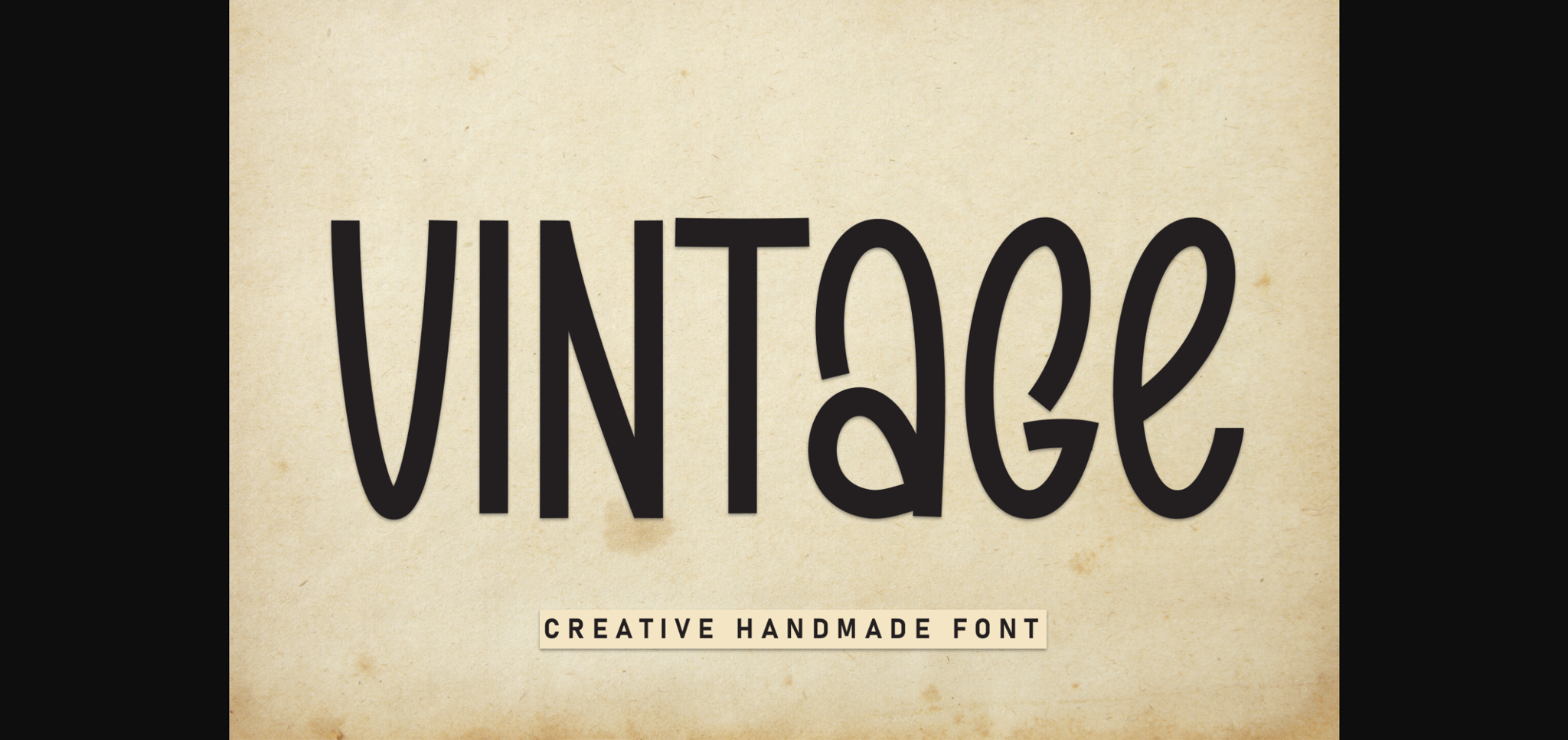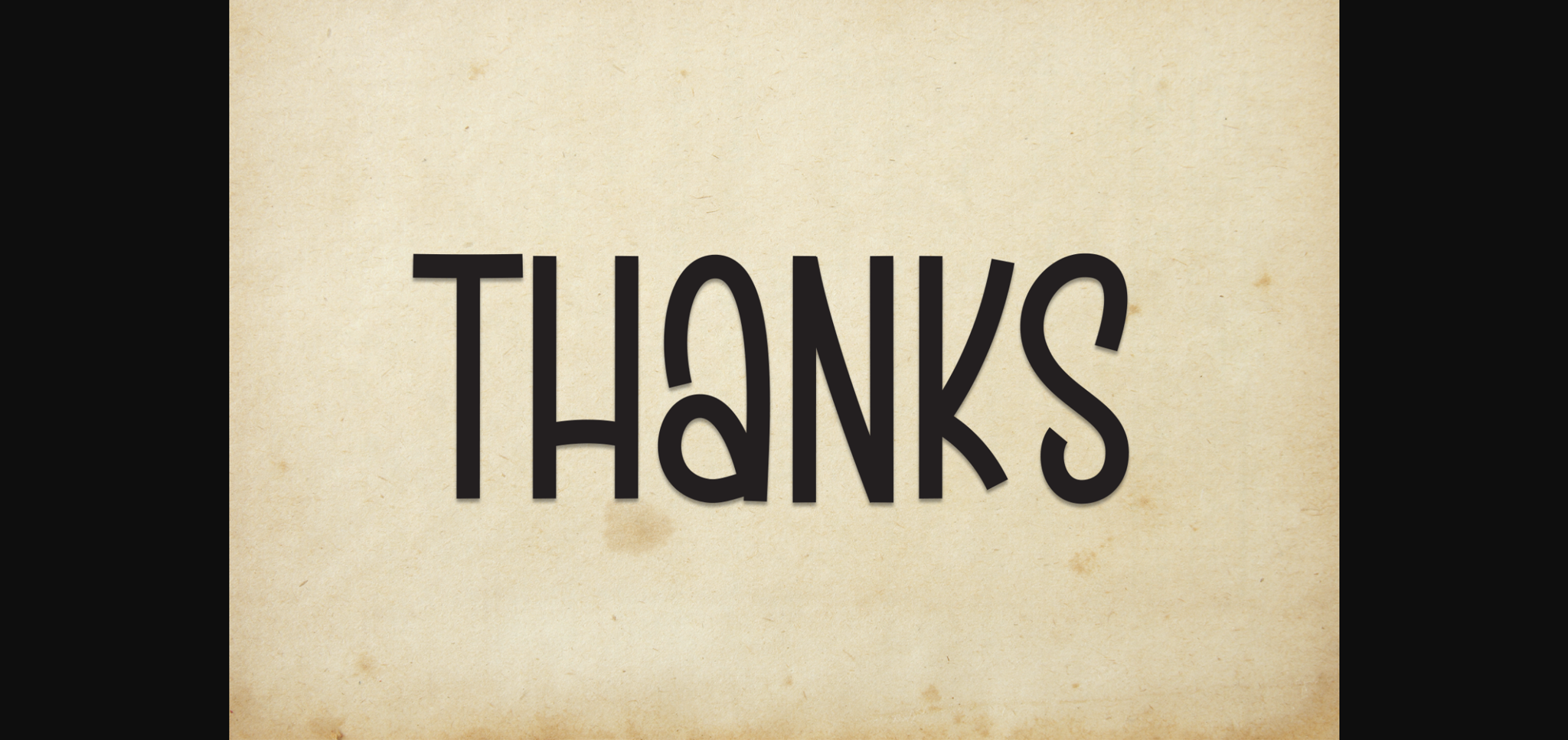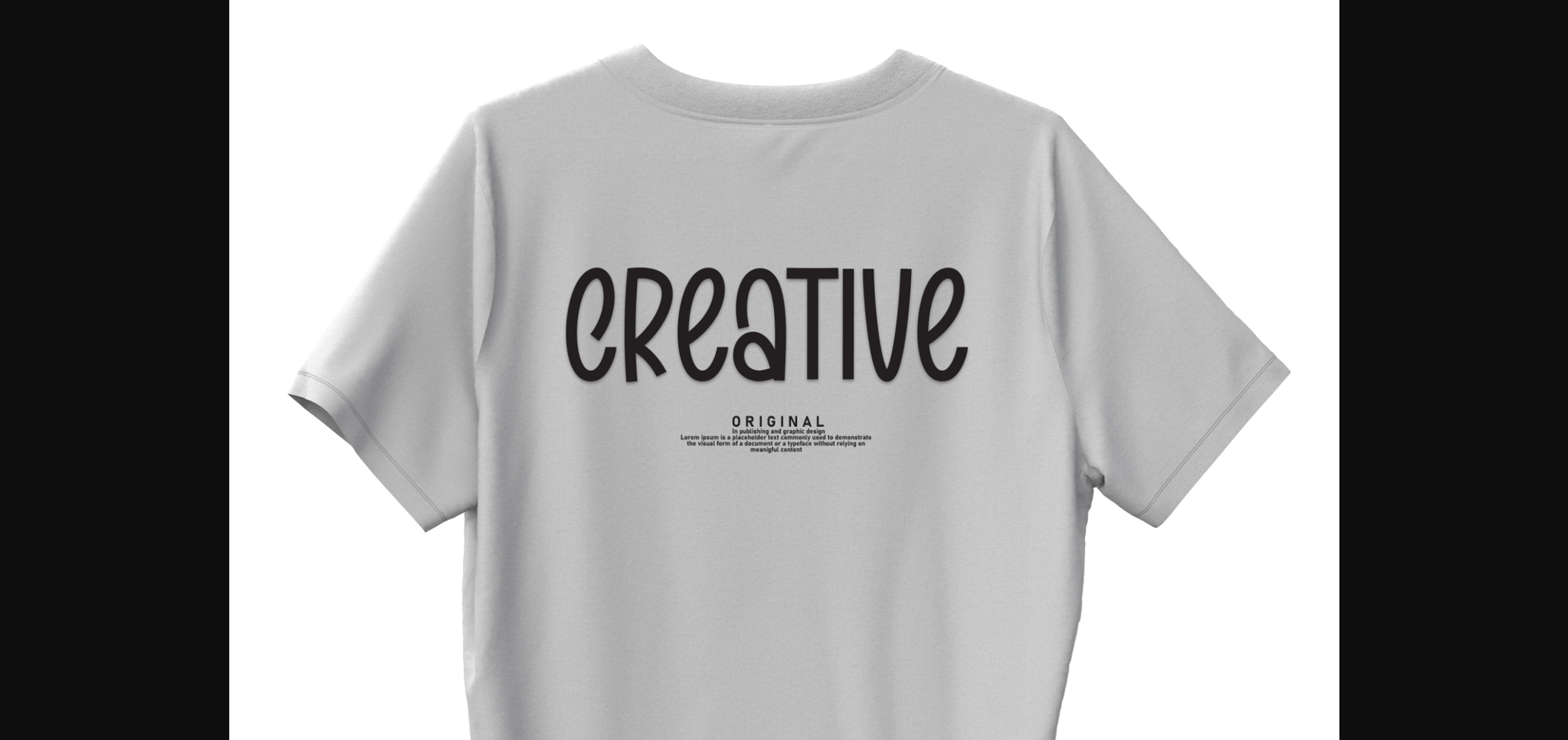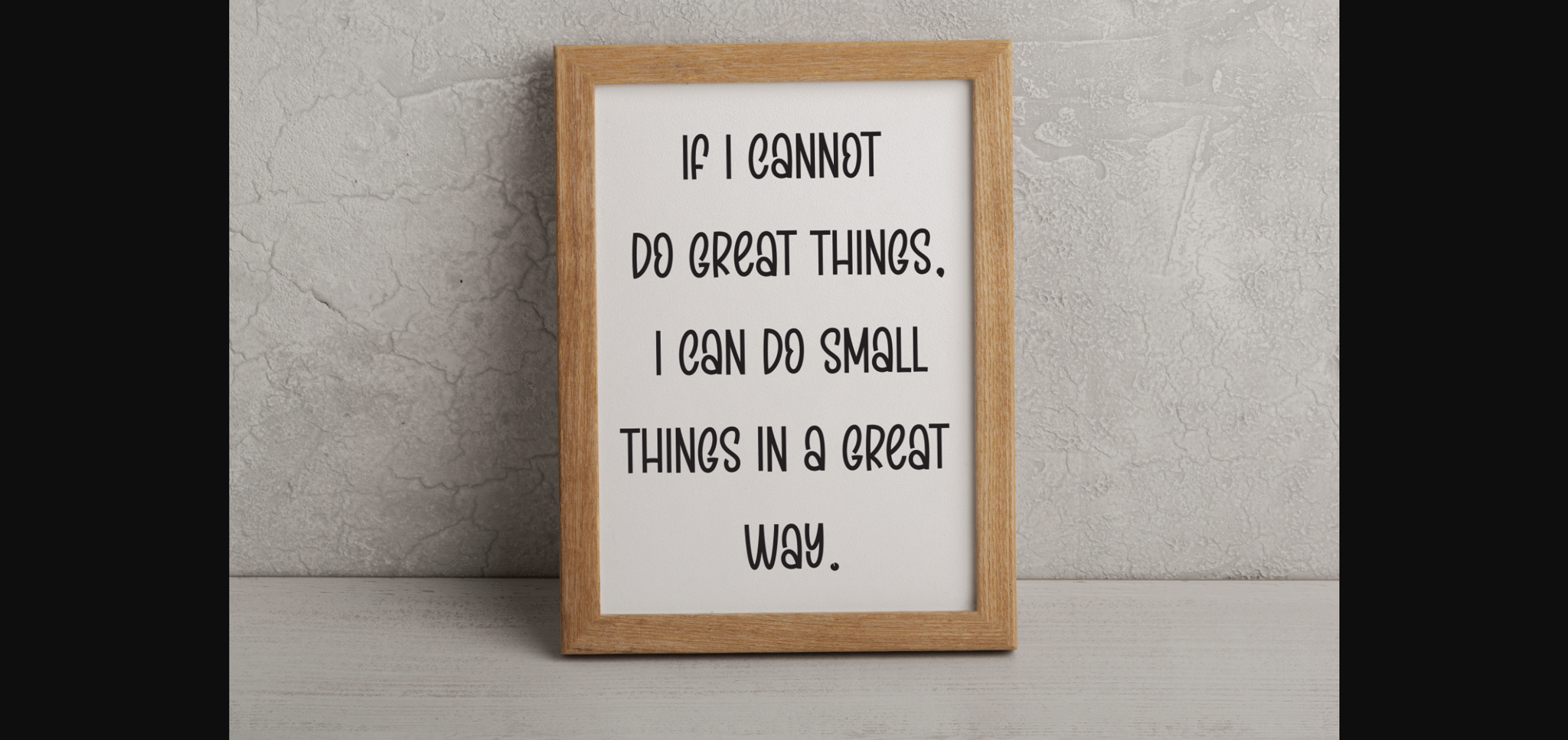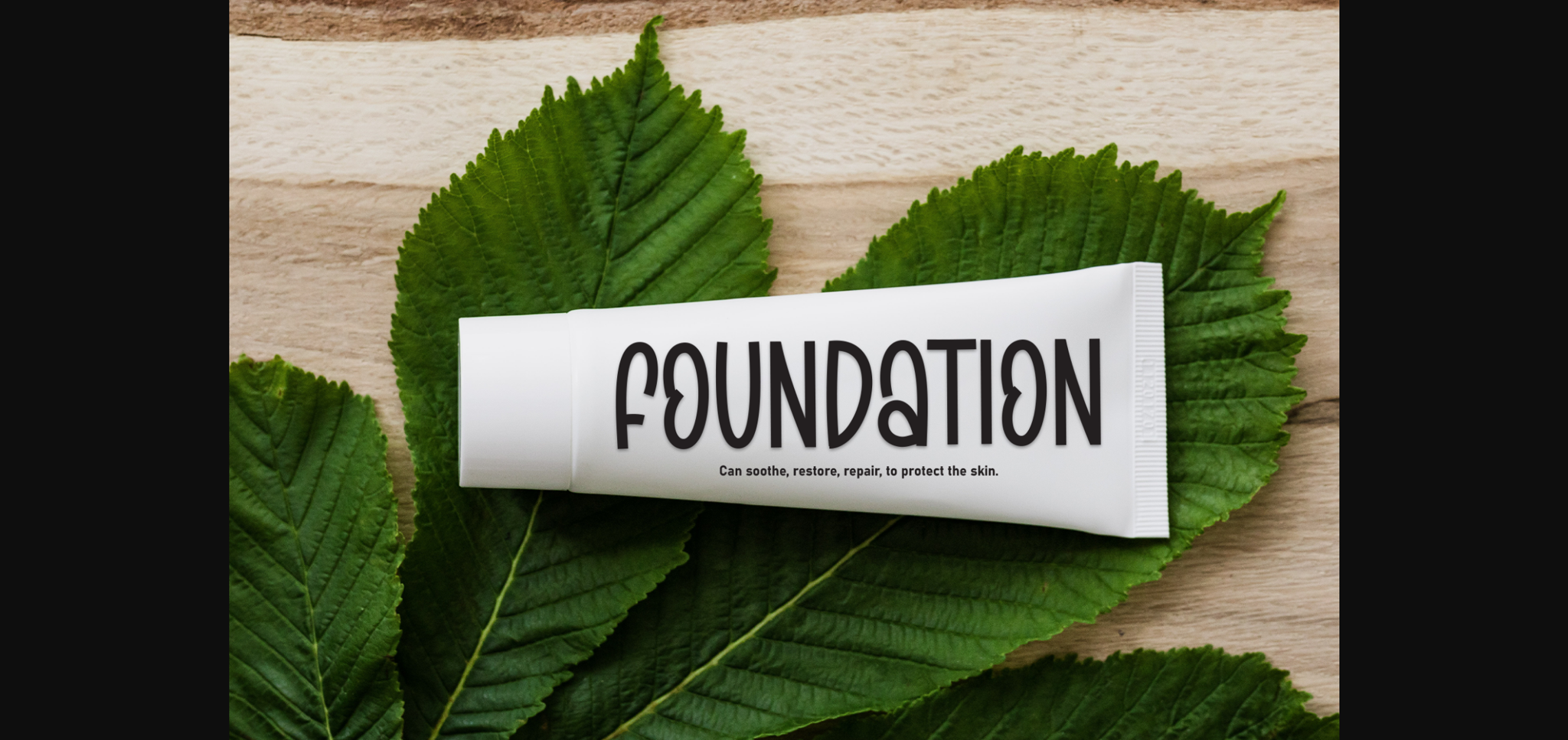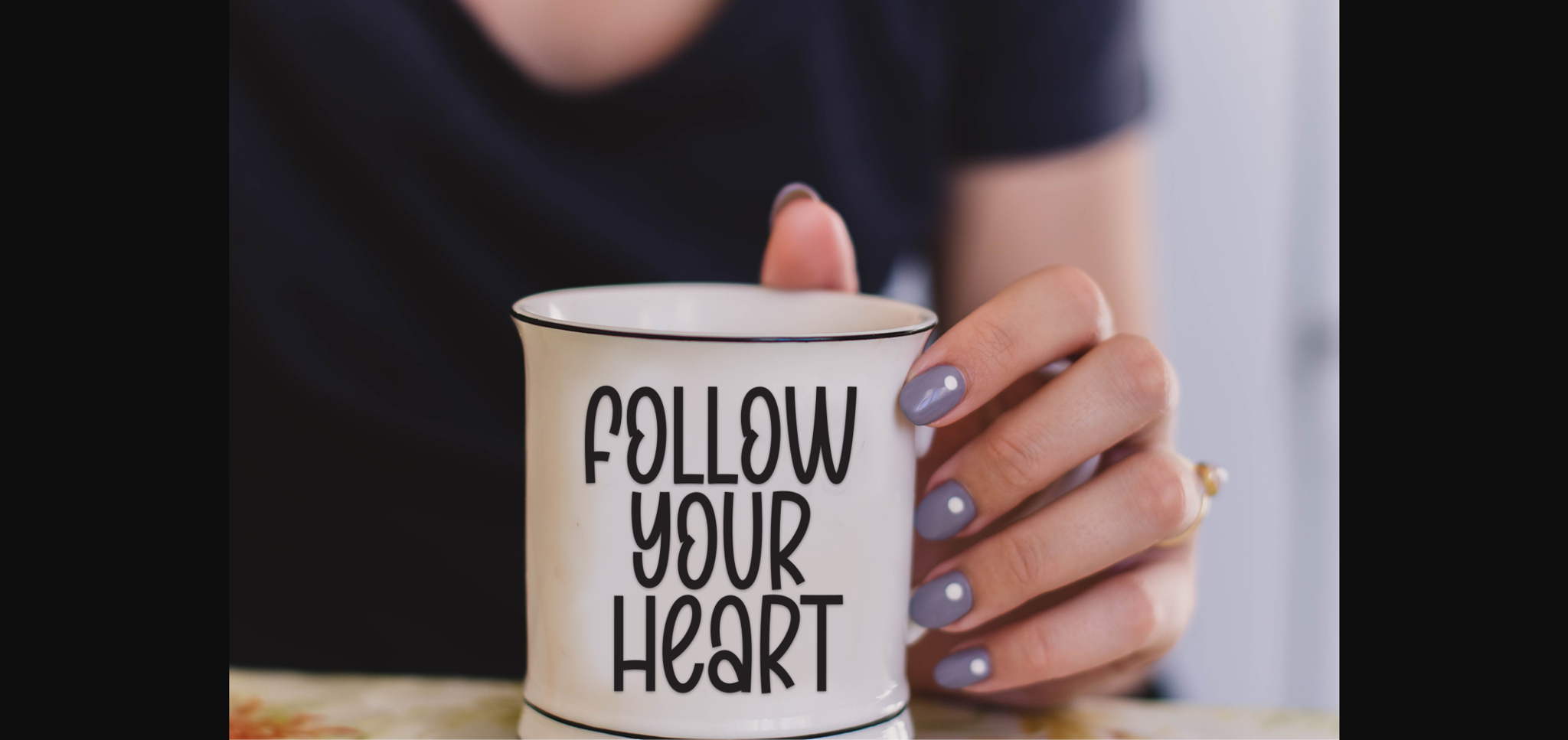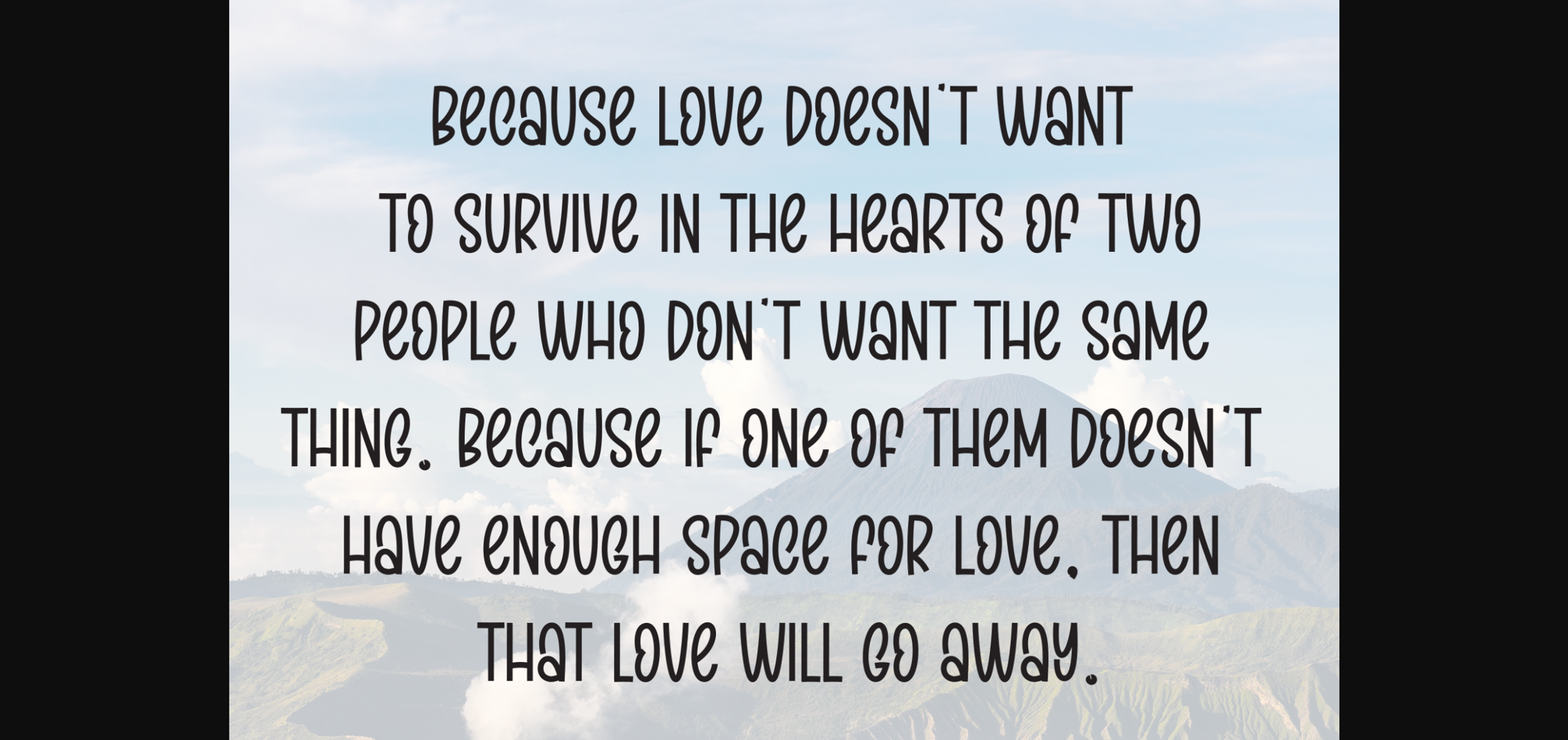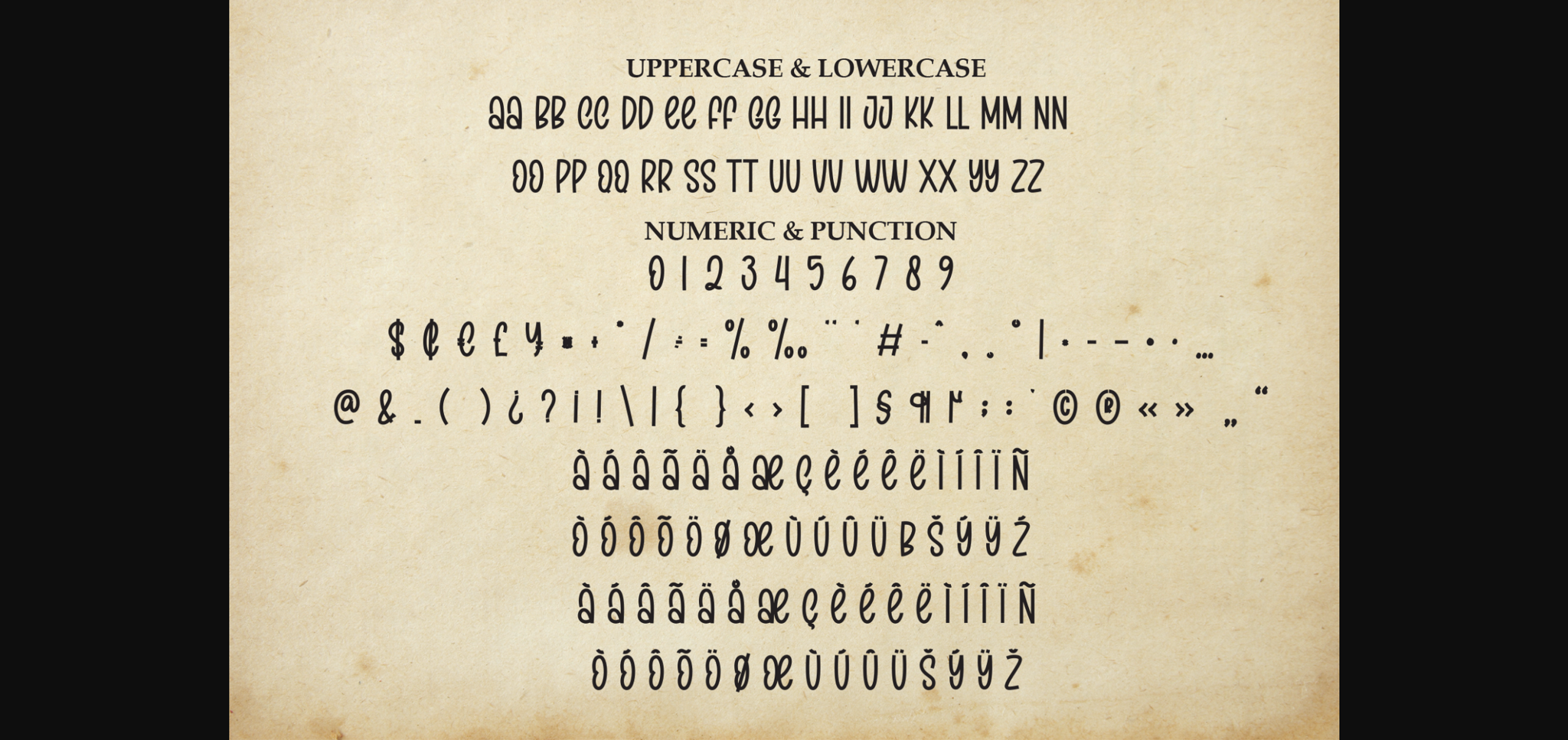
Vintage Font
About Vintage Font
Vintage is a sweet and friendly sans-serif font. Cute yet versatile, this font is ideal for writing wedding invitations, cards, or any other design that might need a lovely touch!